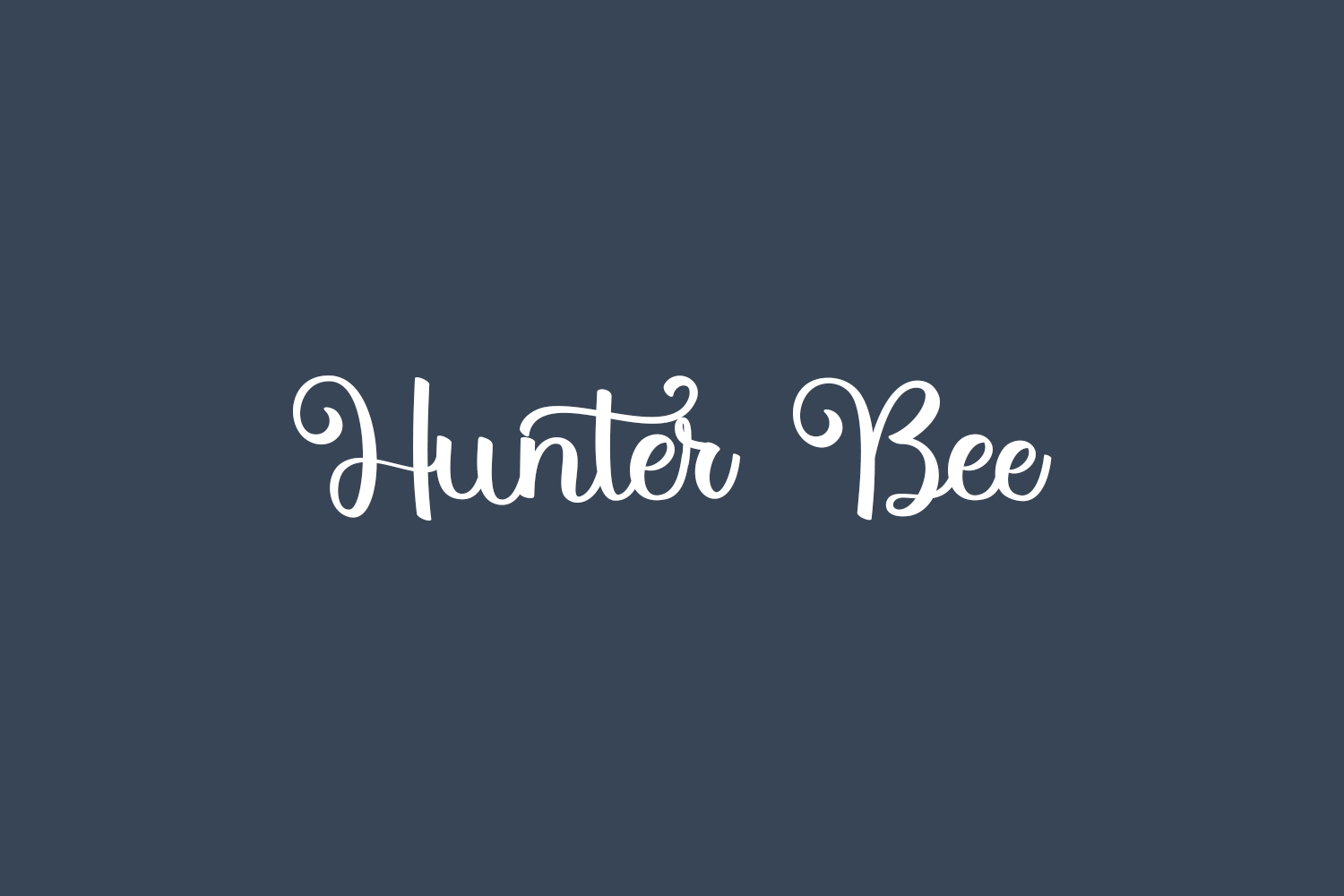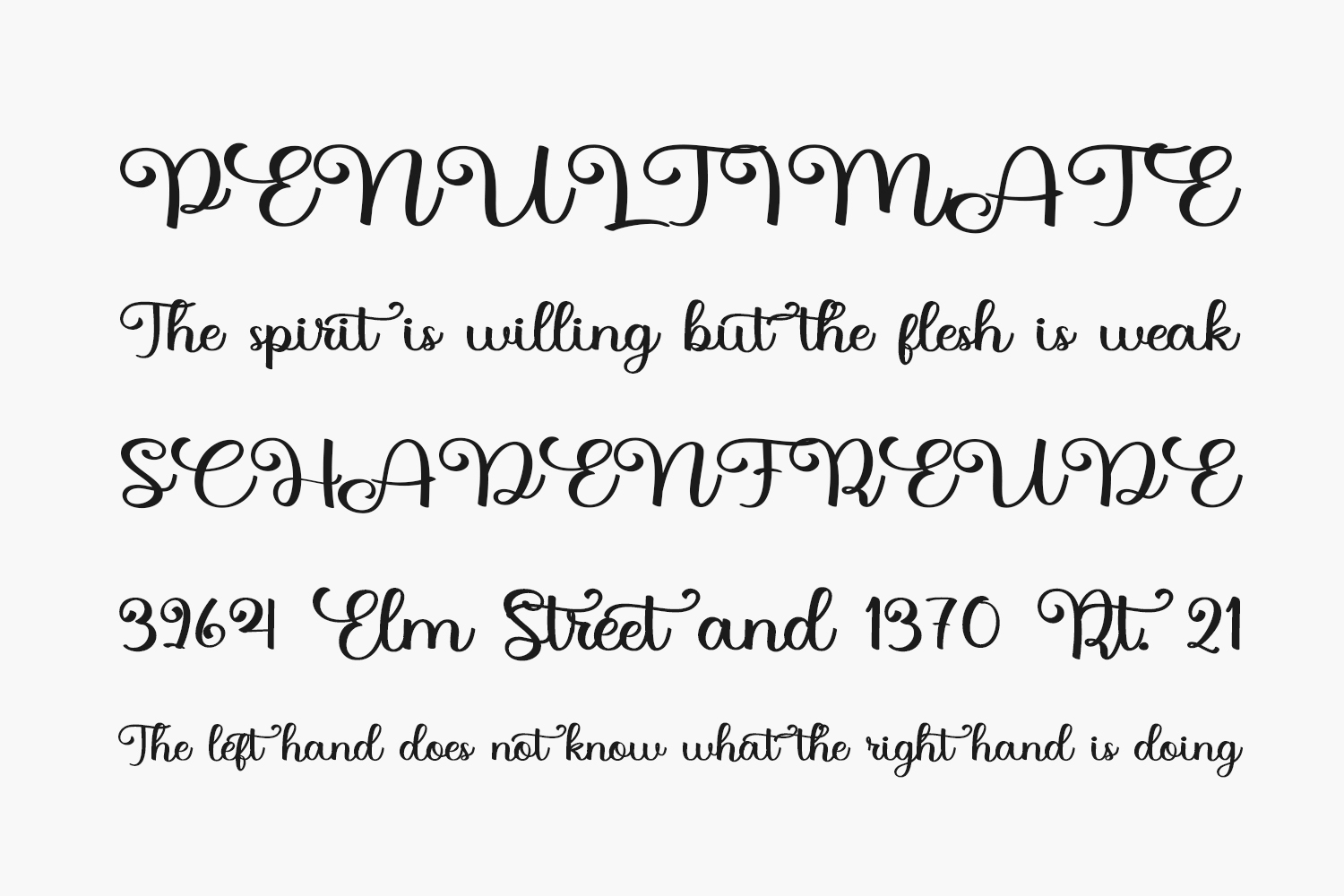
Hunter Bee Free Font is an elegant and dainty handwritten font that features sweet and delicate swashes. This original look will appeal to a wide range of crafty ideas, from letterheads and titles to stationery. Hunter Bee Free Font was designed by Bearytype and is free for personal use only. Please purchase the full version for commercial use.